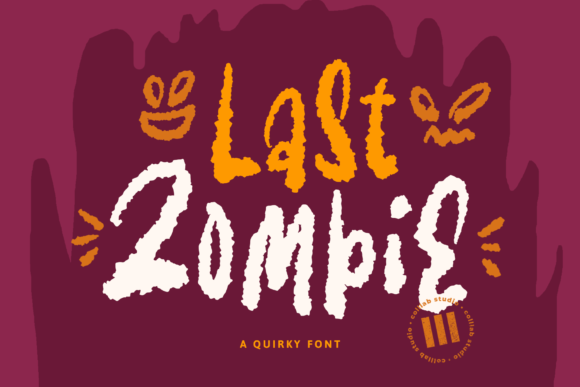
Journey into the realm of the undead with Last Zombie, a display font that oozes character and personality. Step out of the ordinary and embrace the extraordinary with this captivating font, meticulously crafted to leave an indelible mark on your creative endeavors.
Last Zombie is not just a font; it's a gateway to a world of endless possibilities. Its distinctive charm transforms ordinary designs into captivating masterpieces, breathing life into your Halloween-themed concepts. Unleash your imagination and watch as your ideas take on a haunting yet delightful aura.
With Last Zombie, you'll discover a treasure trove of creative opportunities. Craft eye-catching logos that demand attention, design posters that send shivers down spines, and create social media graphics that ignite engagement. The possibilities are endless, limited only by the boundaries of your imagination.
Last Zombie's versatility extends beyond the realm of Halloween. Its intricate details and playful spirit lend themselves effortlessly to a wide range of projects, from whimsical invitations to quirky branding. Let your creativity run wild as you explore the diverse applications of this captivating font.
Elevate your design game with Last Zombie's multilingual support, ensuring your message resonates across borders. Engage a global audience with designs that speak their language, leaving a lasting impression wherever they may roam.
Dive into the world of Last Zombie today and embark on a creative adventure like no other. Let your imagination run rampant as you create designs that leave a lasting impression. Embrace the extraordinary and let Last Zombie guide you towards design greatness.